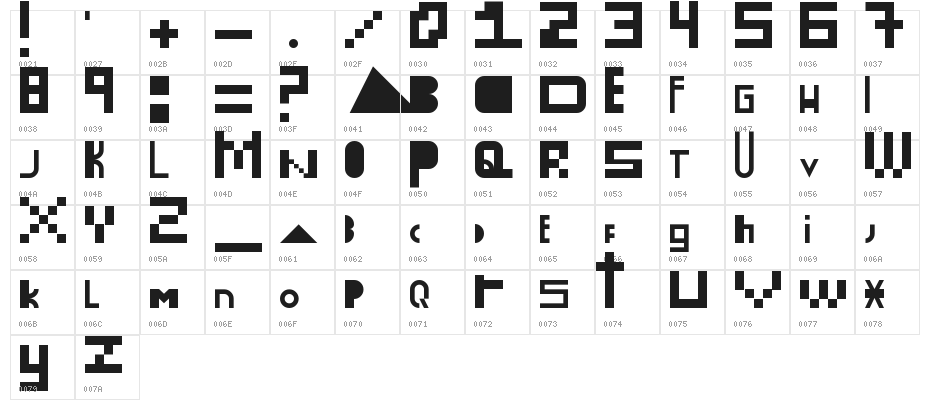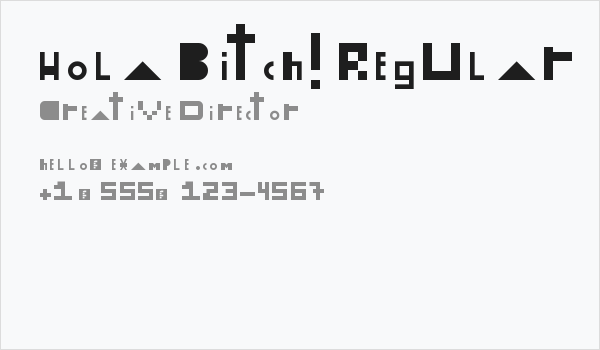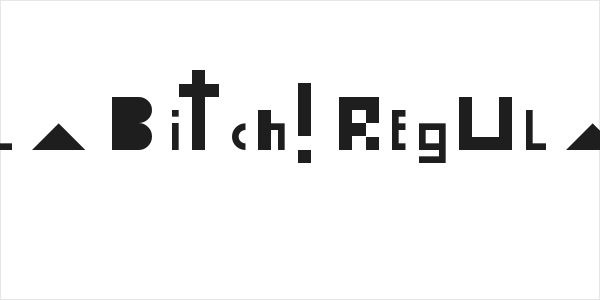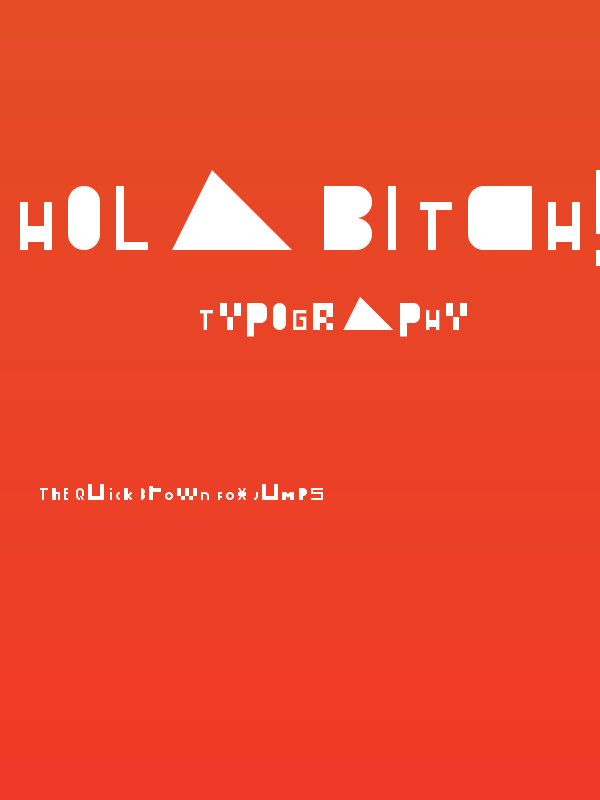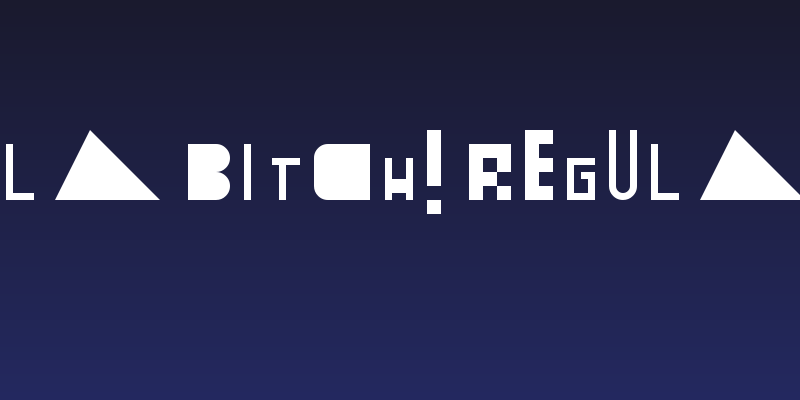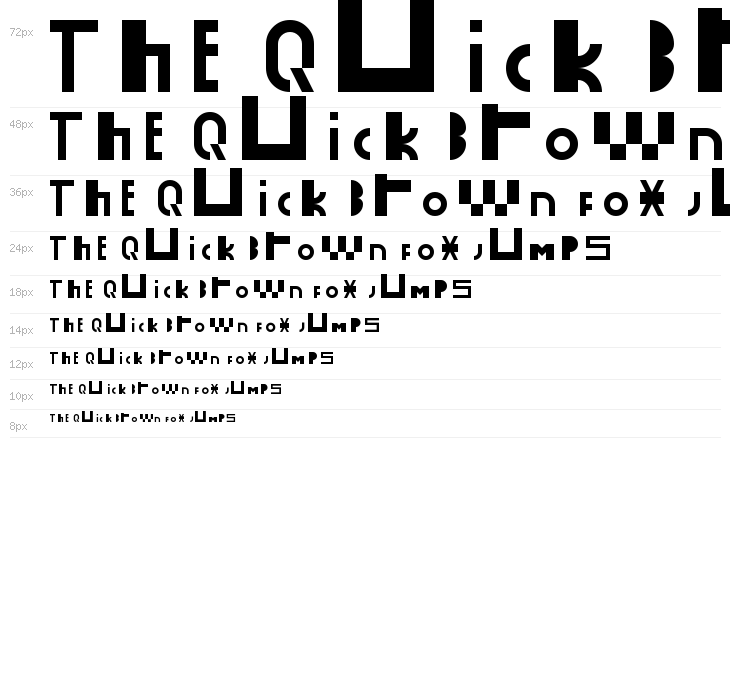
Hola Bitch! Regular Font
Hola Bitch! Regular Description
This font features a bold and geometric design, characterized by its blocky and angular letterforms. The uppercase letters are particularly striking, with some characters incorporating unique shapes and cutouts that add a modern and edgy feel. The lowercase letters maintain a consistent style, though they are slightly more rounded, providing a subtle contrast to the sharpness of the uppercase. The numerals are equally bold, ensuring they stand out in any context. Special characters are designed with the same geometric precision, making them cohesive with the rest of the font. Overall, this font is ideal for projects that require a strong visual impact and a contemporary aesthetic.